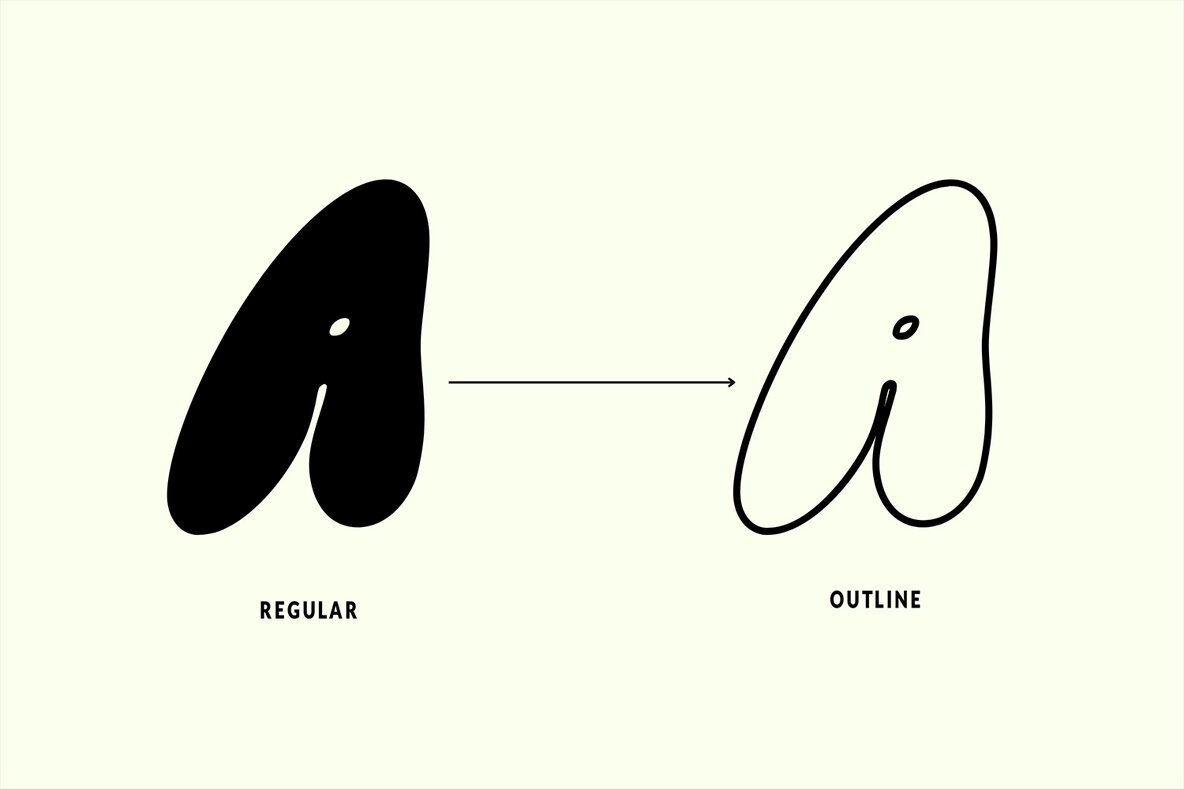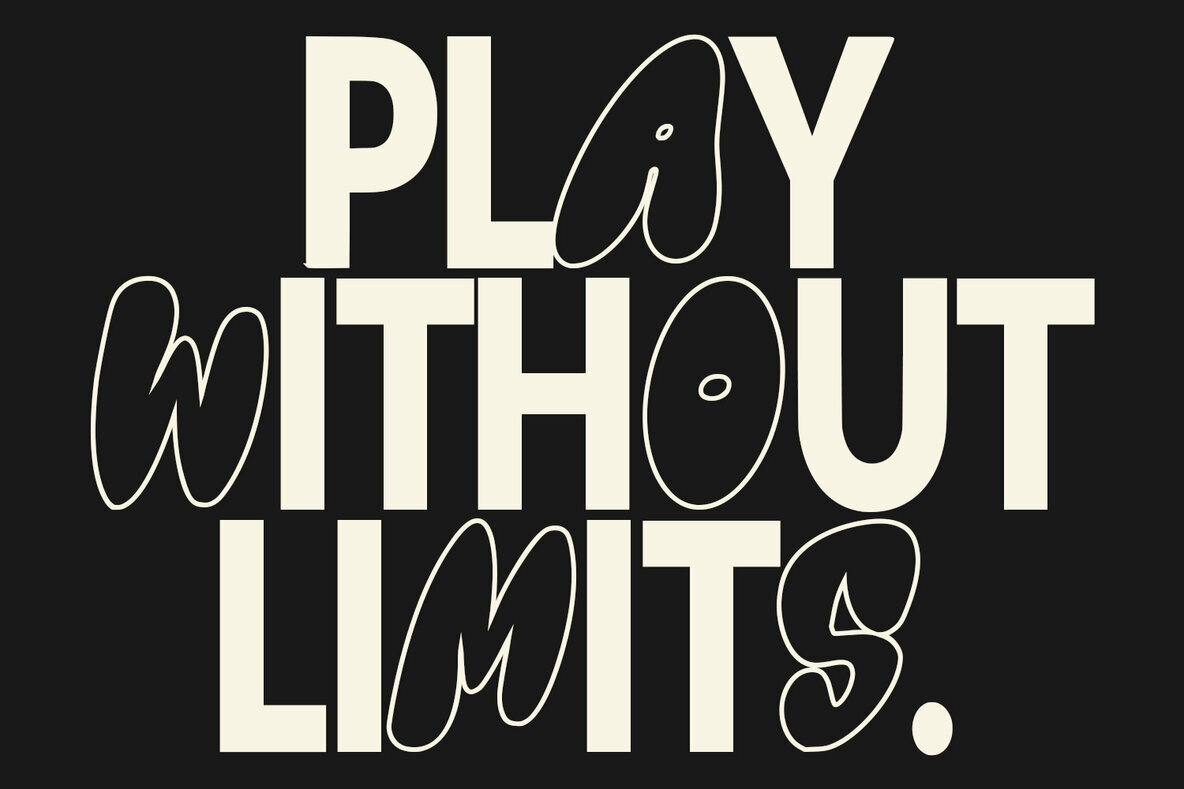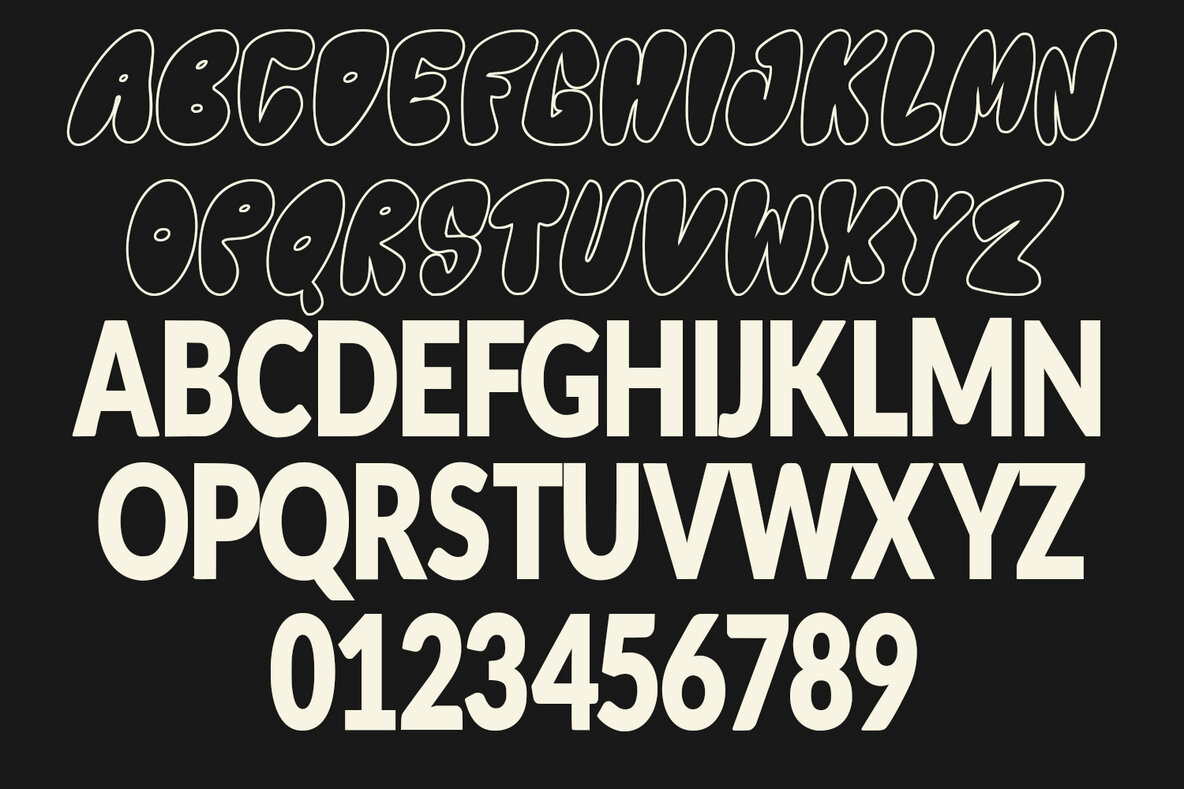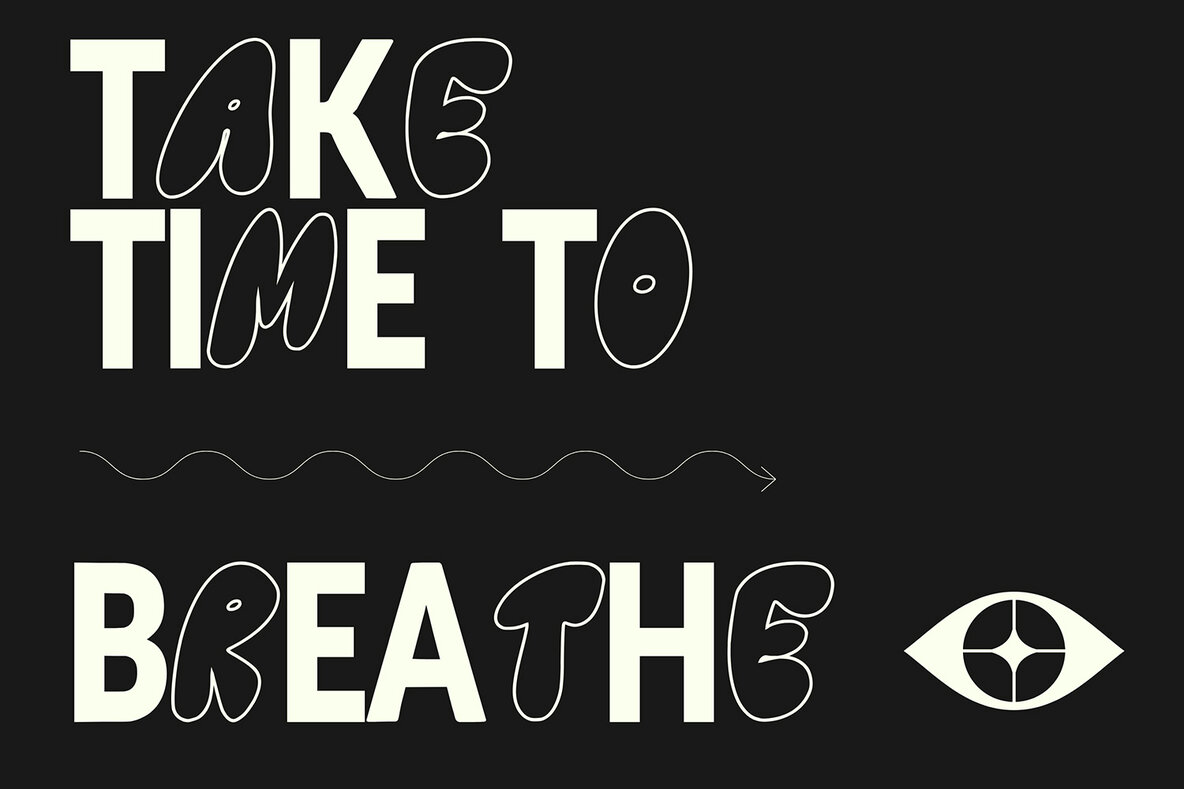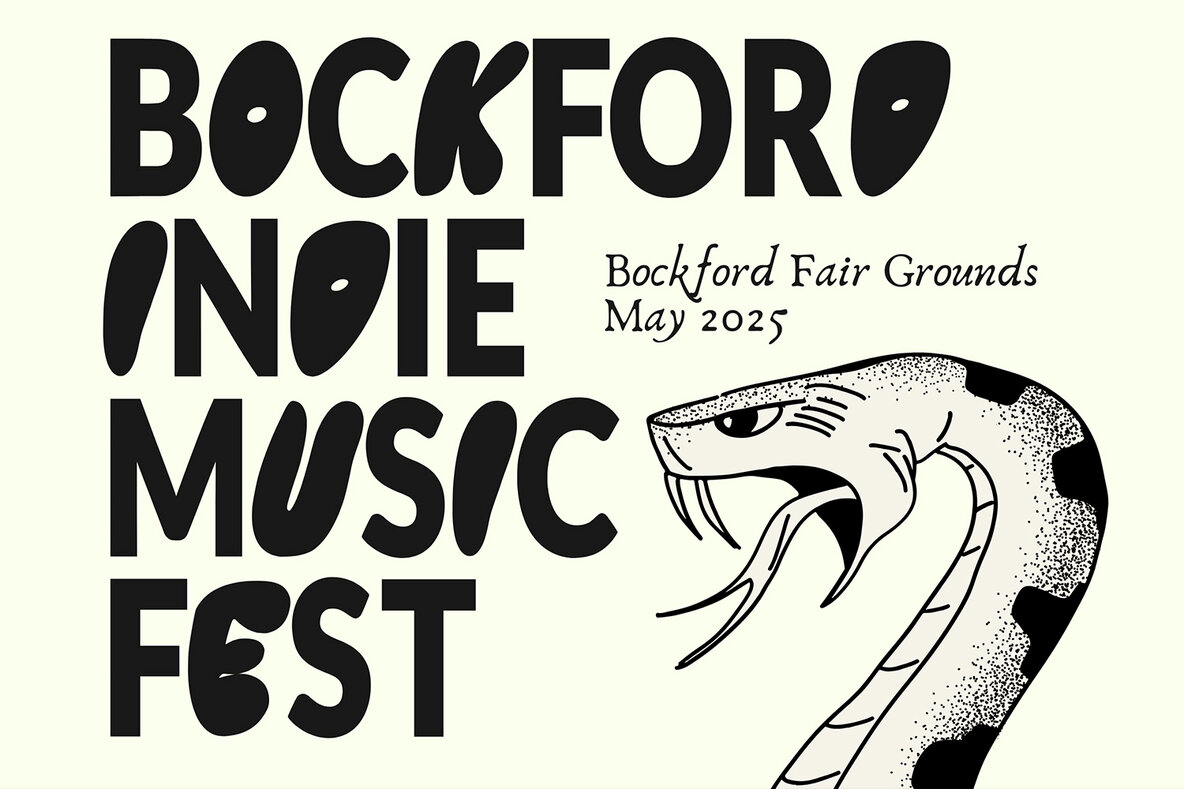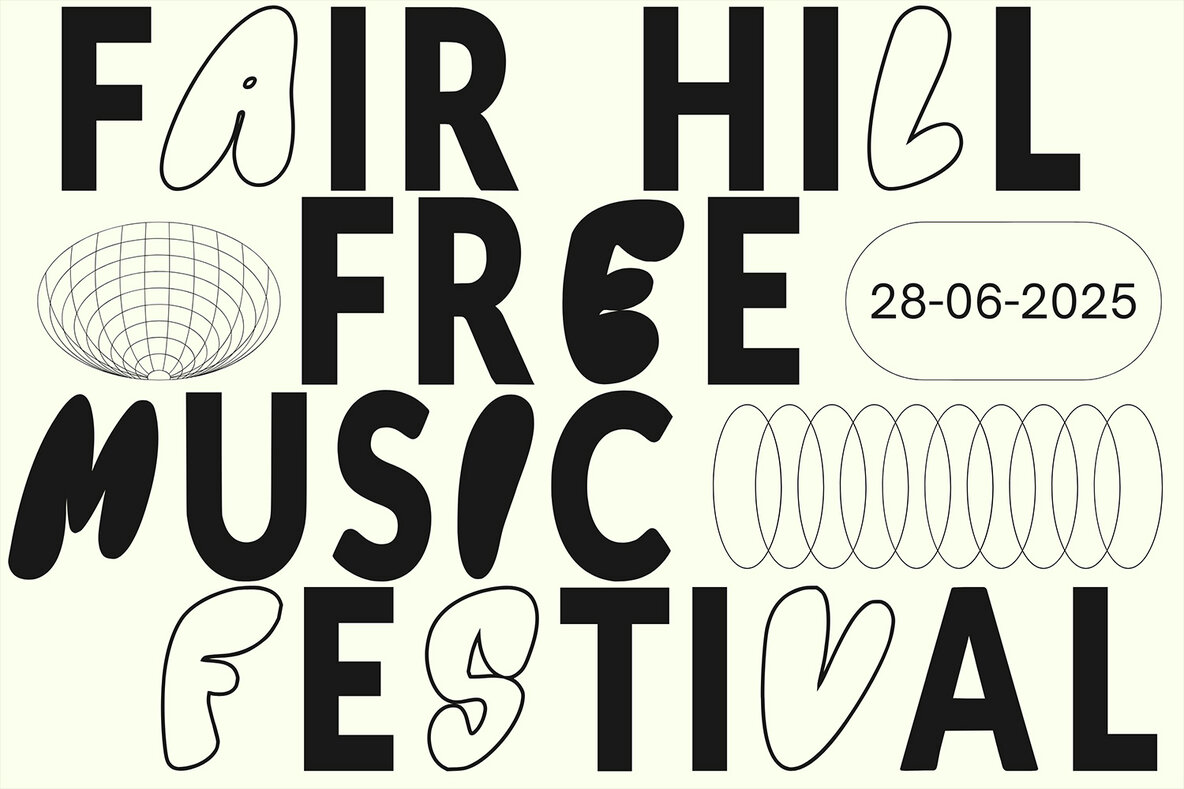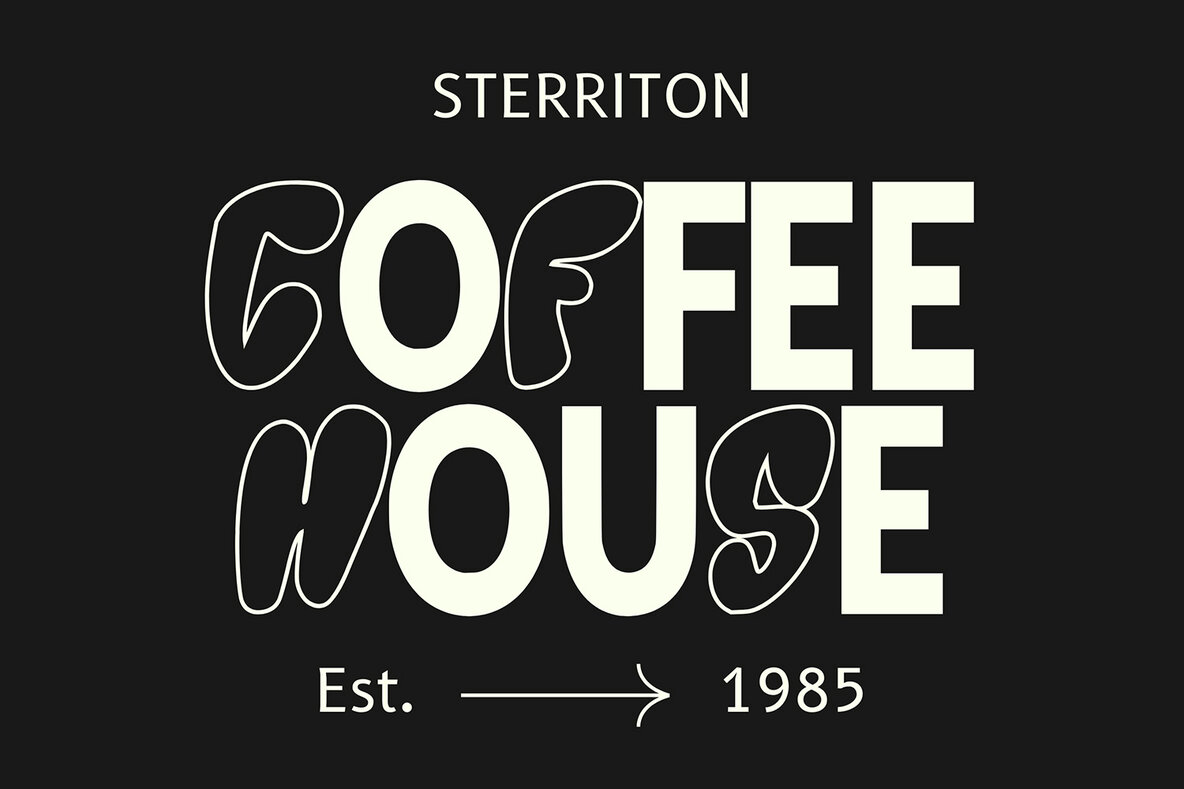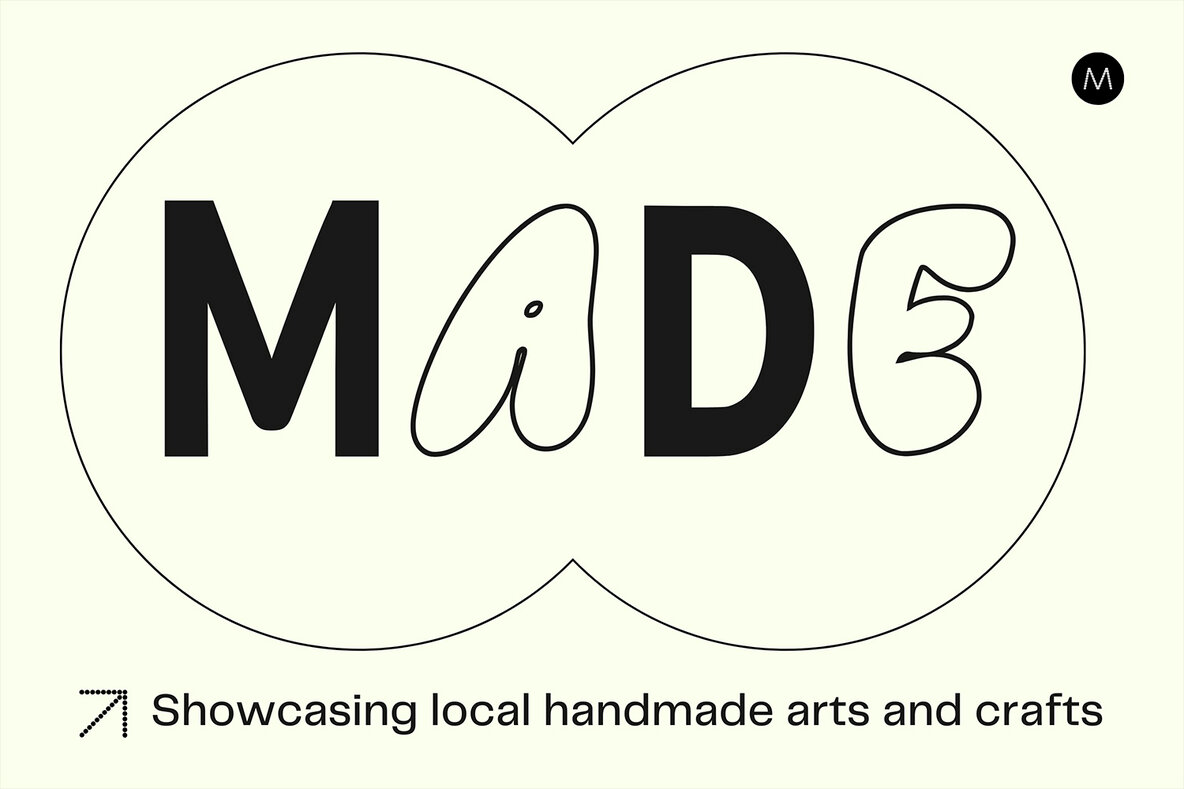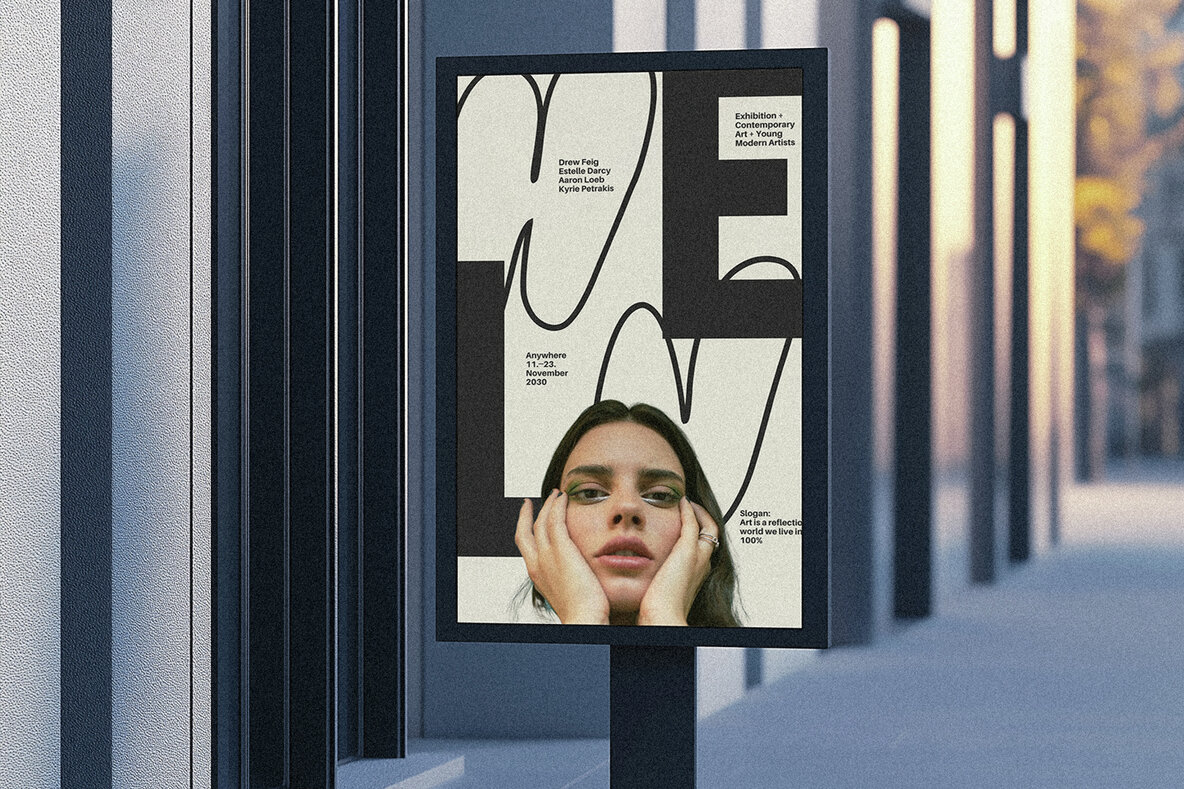
Metaform Font
Metaform is an innovative typeface that reimagines traditional typography. Designed for creatives who venture beyond the norm, this font merges abstract elements with structured letterforms, resulting in a captivating fusion of chaos and order.
Key Features:
- Hybrid Design: Metaform seamlessly integrates geometric shapes, fragmented lines, and unconventional curves, presenting a style that is both modern and experimental.
- Versatile Styles: This font is ideal for a variety of projects, including avant-garde posters, album covers, branding, experimental web design, and editorial layouts.
- Dynamic Aesthetic: The font pairs bold, striking visuals with subtle nuances, offering an eye-catching and flexible option for your design needs.
- Customizable Layers: Metaform provides layered options, allowing for the creation of unique visual effects.
Metaform goes beyond being merely a font—it's an artistic expression. It encourages designers to explore new creative dimensions and step outside conventional boundaries. Whether you're crafting a bold headline or adding a touch of abstract sophistication, Metaform's unique style transforms designs into visually compelling experiences. This typeface is perfect for forward-thinking designers, experimental artists, and brands seeking to stand apart by challenging conventions and embracing creativity. Explore uncharted design territory with Metaform, the experimental combination font that redefines typography.